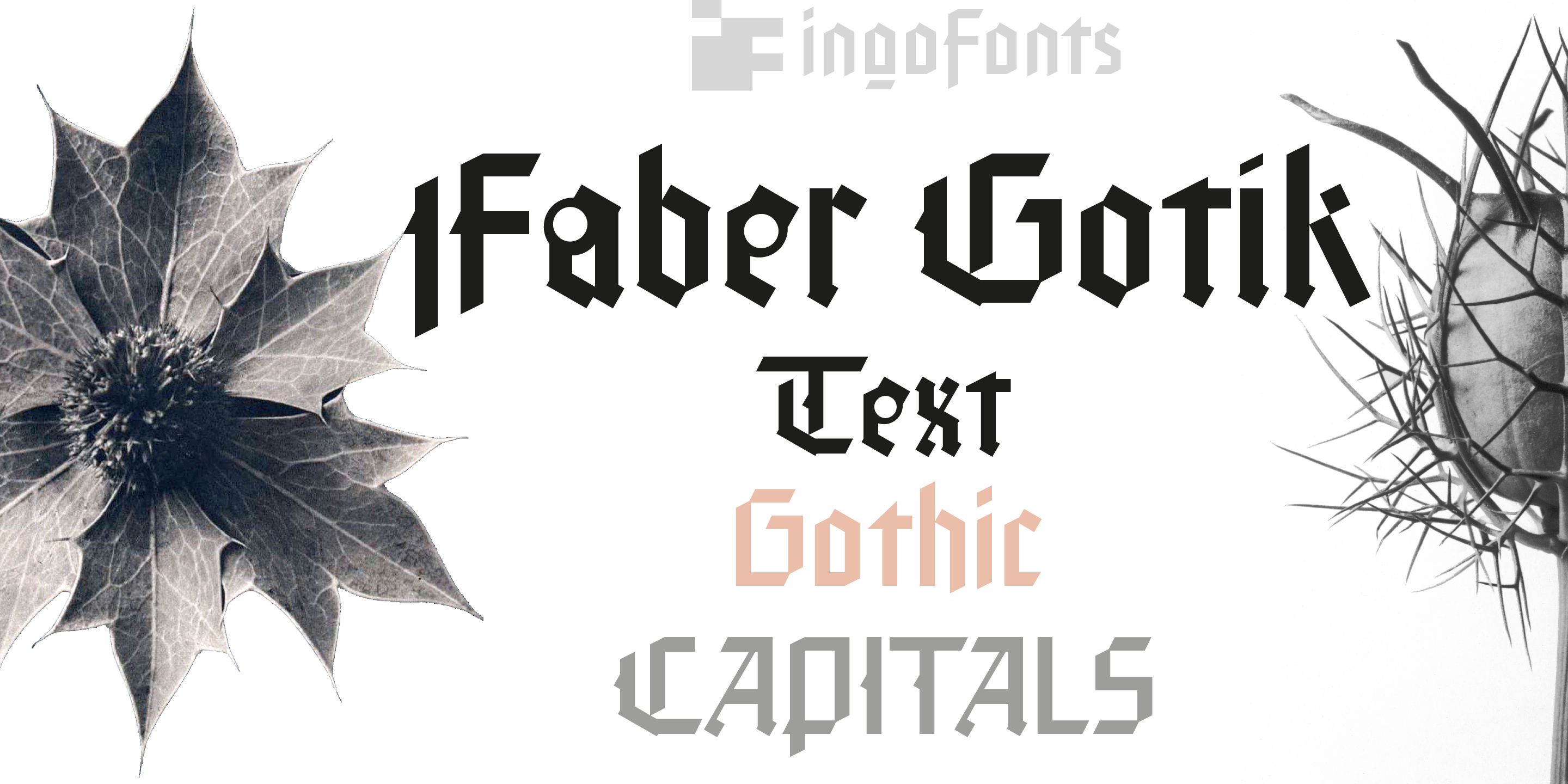
Faber Gotic Font is perfect for gothic architecture projects, medieval cathedral signage, dark fantasy book covers, horror movie titles, gothic fashion branding, historical manuscript reproductions, metal band logos, dark academia aesthetics, mysterious event promotions, vintage church materials, and any project that requires dramatic gothic elegance with medieval sophistication.
What makes Faber Gotic Font exciting is its authentic recreation of medieval gothic lettering traditions that transports viewers to an era of towering cathedrals and illuminated manuscripts through meticulously crafted letterforms. This majestic typeface features ornate details with dramatic vertical emphasis that evoke the grandeur of gothic architecture and the mystique of ancient scriptoriums. The font's gothic character adds instant historical authenticity and dramatic sophistication to any design, making it perfect for projects celebrating medieval heritage and gothic aesthetics.
Faber Gotic Font comes in multiple font families including Regular, Bold, Light, Ornate, Condensed, and Illuminated variations, providing designers with comprehensive options to create medieval compositions and achieve the perfect gothic aesthetic for historically-inspired design projects.
Whether you're developing heritage brand identity, creating medieval entertainment materials, or designing gothic cultural campaigns, Faber Gotic Font Free Download offers the perfect solution for projects demanding authentic gothic character and medieval sophistication. This dramatic typeface excels in display applications where historical presence is essential, ensuring your designs communicate gothic grandeur and medieval authenticity. The ornate details and gothic styling of Faber Gotic Font make it an indispensable tool for designers who prioritize medieval heritage, gothic architecture, and dramatic historical elegance in their typographic selections.